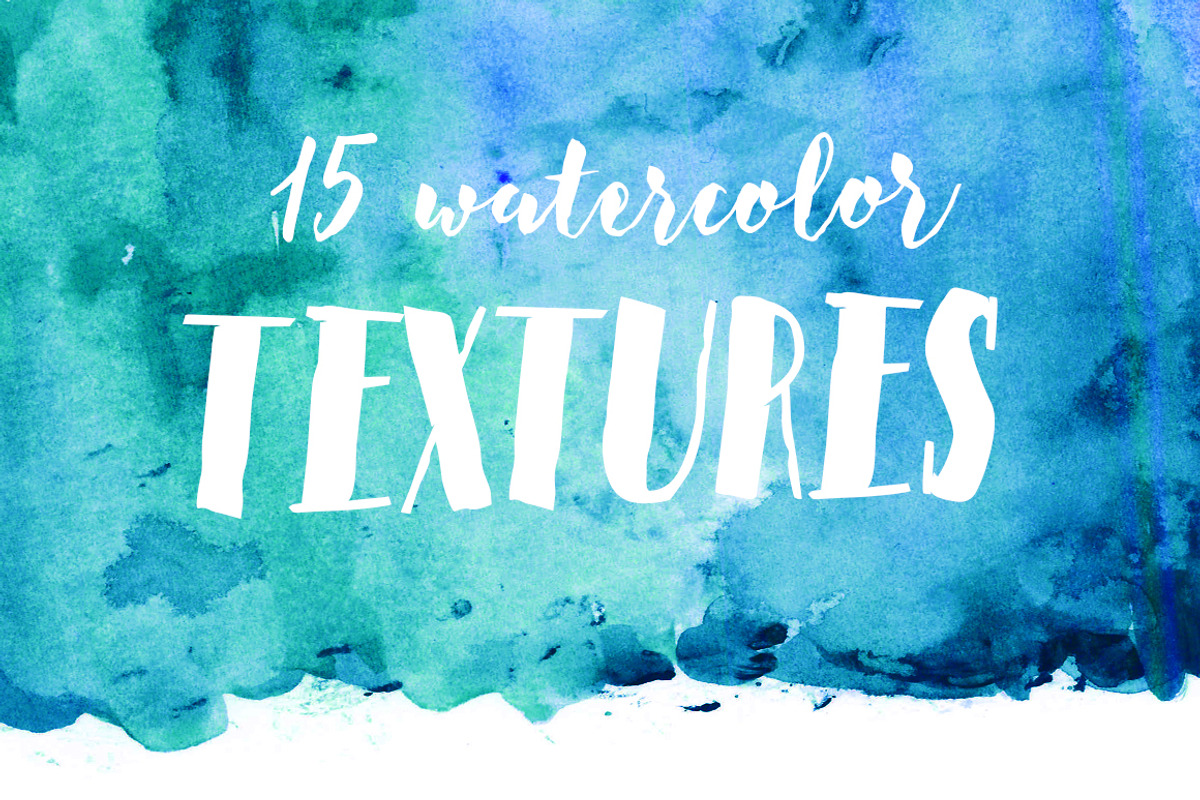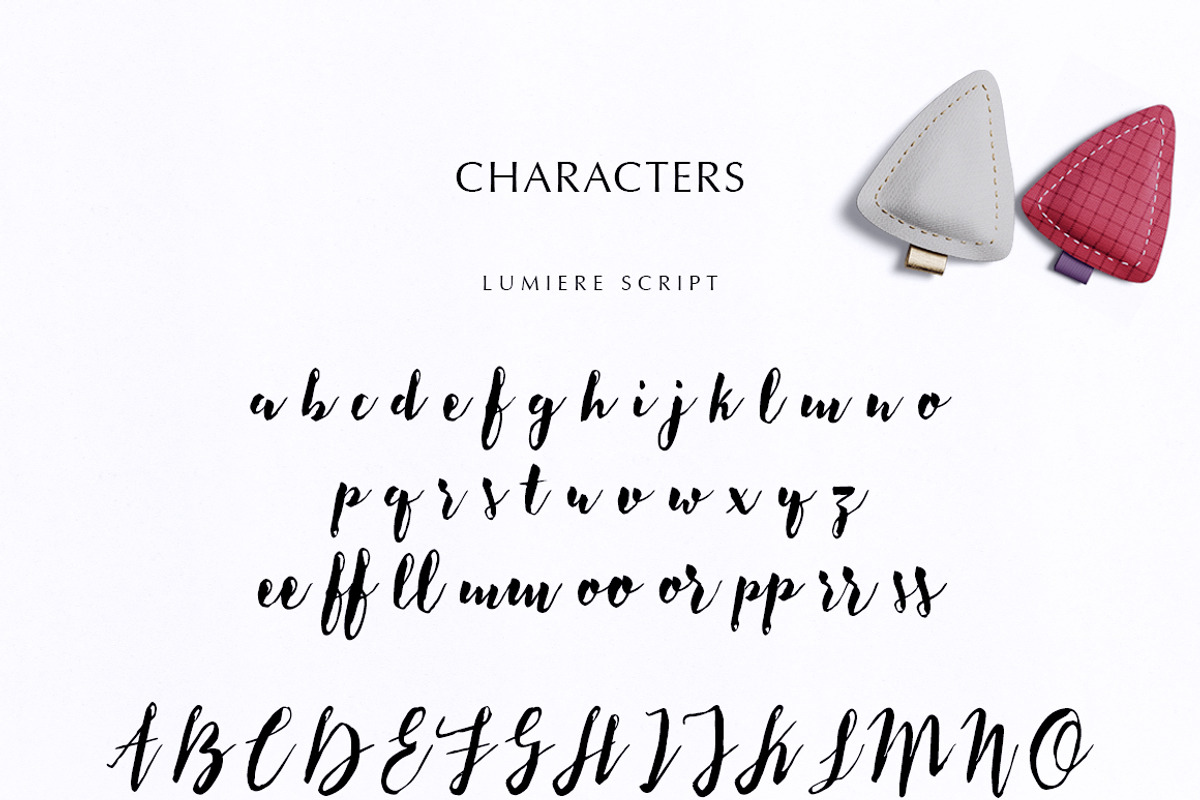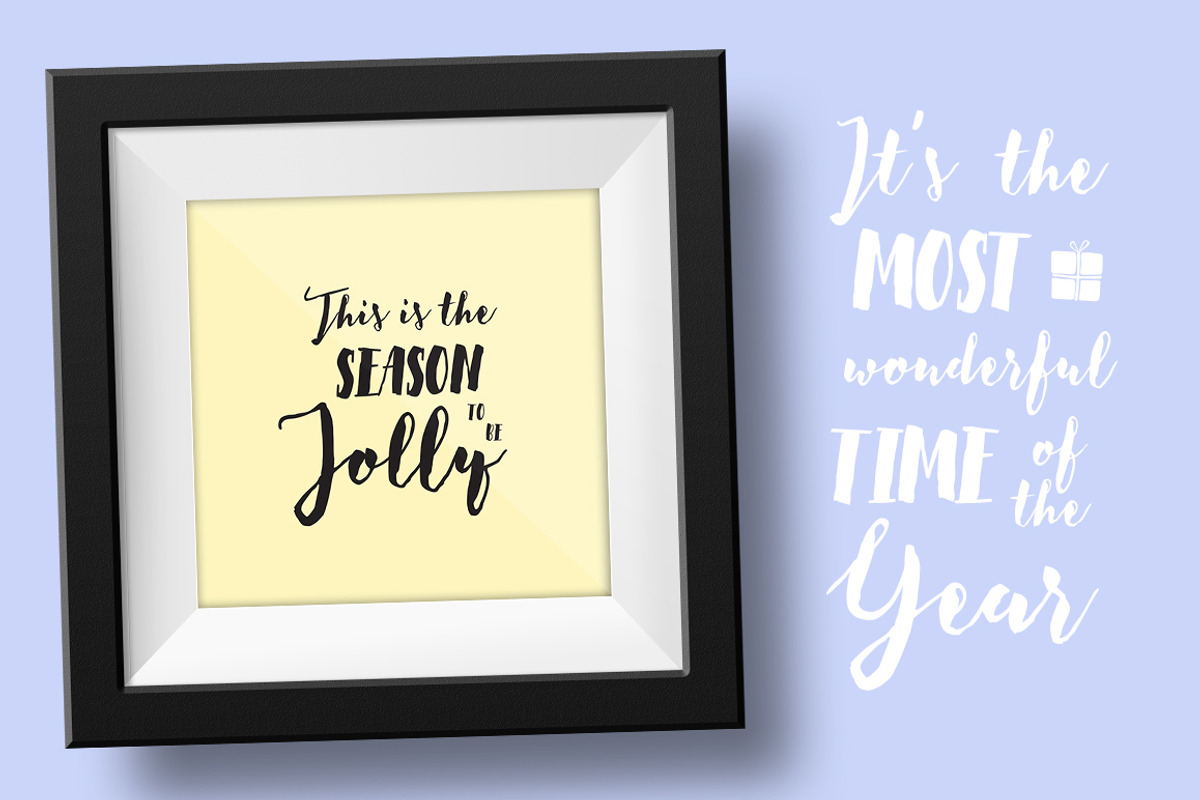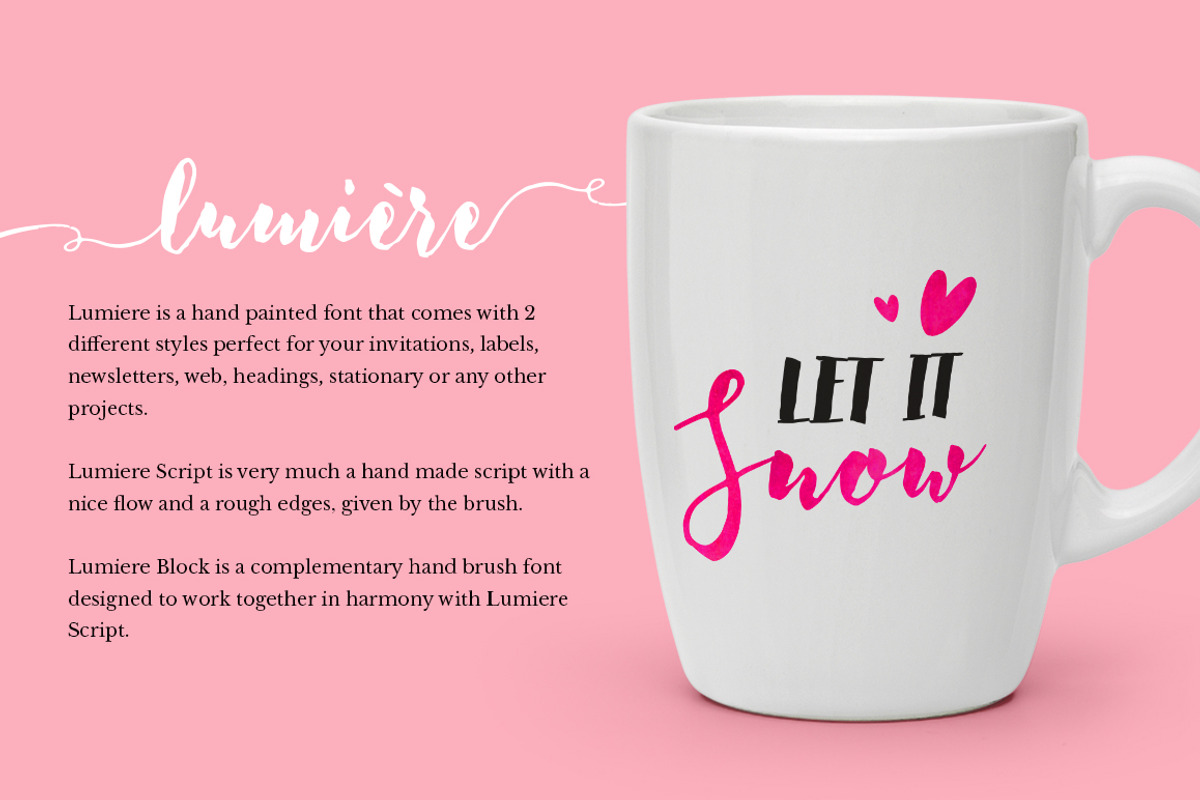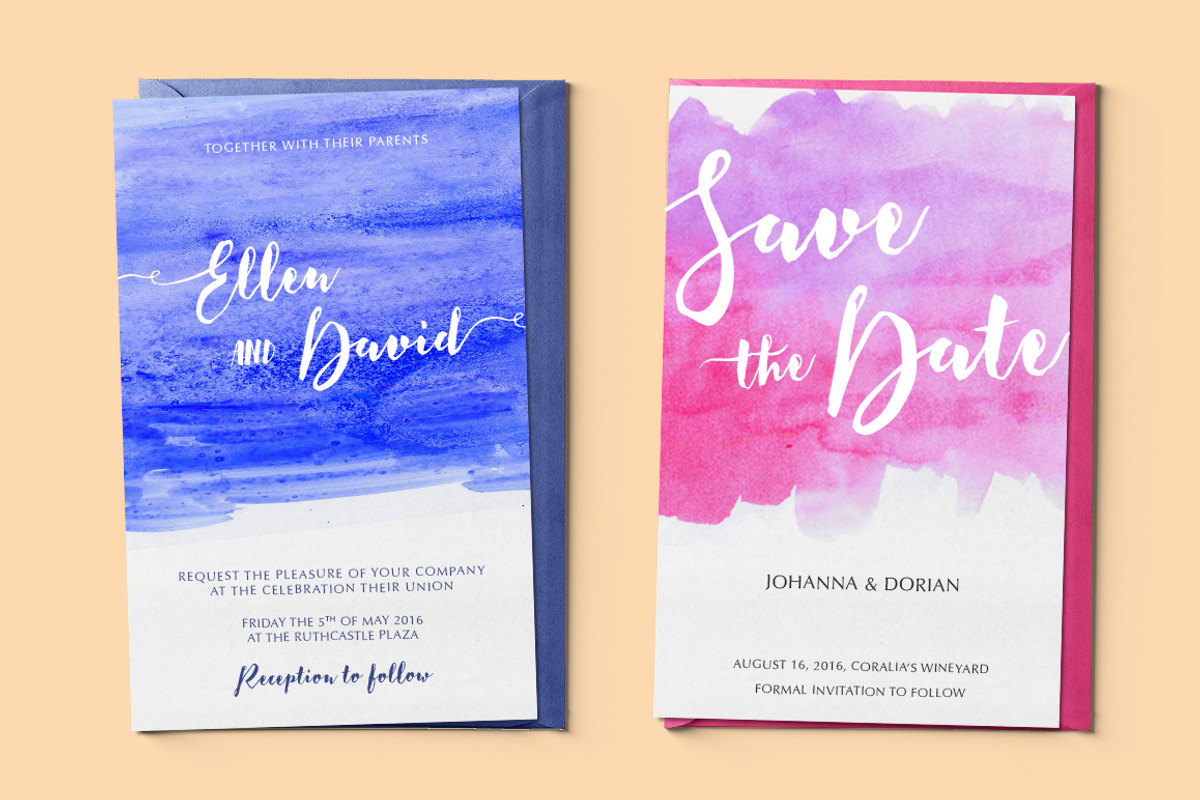
Lumiere Font + Extras
Lumiere Font + Extras by VladCristea is a font selected for branding, posters, packaging, typography.
- Lumiere Block Regular
- Lumiere Script Regular
Lumiere Font + Extras by VladCristea fits naturally into Branding, posters, packaging, typography.